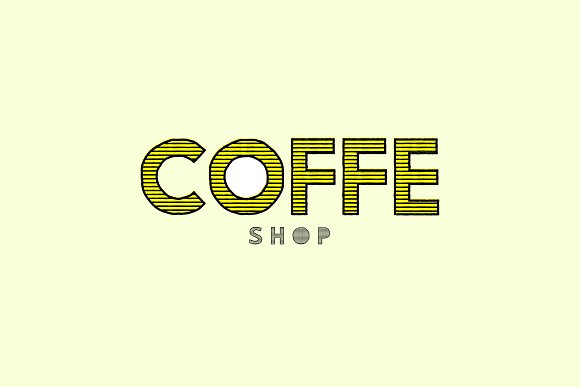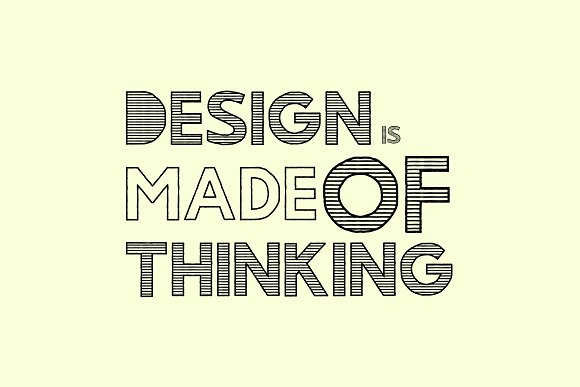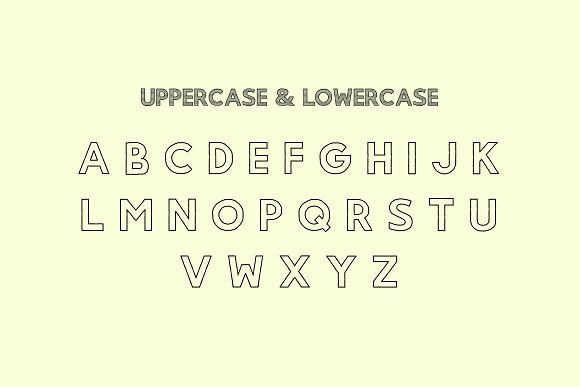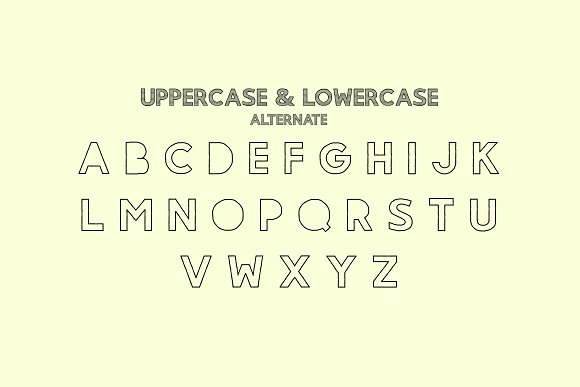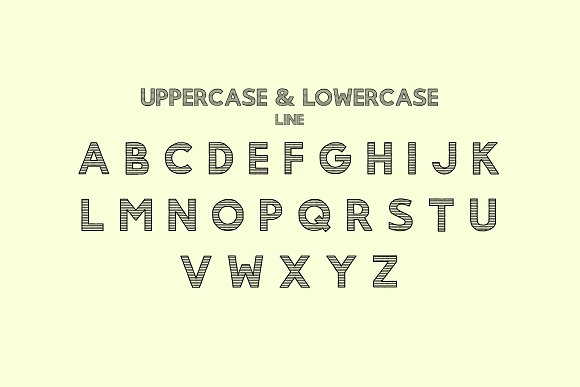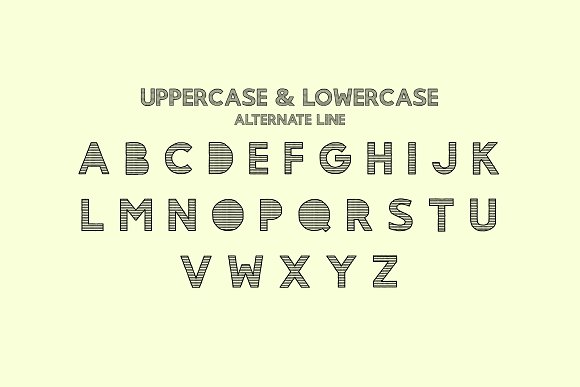
Introduction to Gorden Font
Gorden is a hand drawn font that comes in 4 different styles.
These styles work together perfectly .
Key Features of Gorden Font
Why Choose Gorden Font?
Gorden Font offers exceptional quality and versatility, making it a valuable addition to your design toolkit. Whether you’re creating for personal projects or commercial use, Gorden Font delivers professional results.